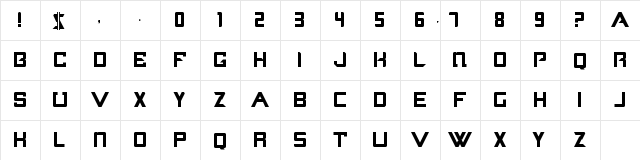
universatario Regular
| Designer | walkerws |
universatario takes a measured approach to typography — its balanced proportions and neutral character make it a reliable workhorse for both digital and print work.